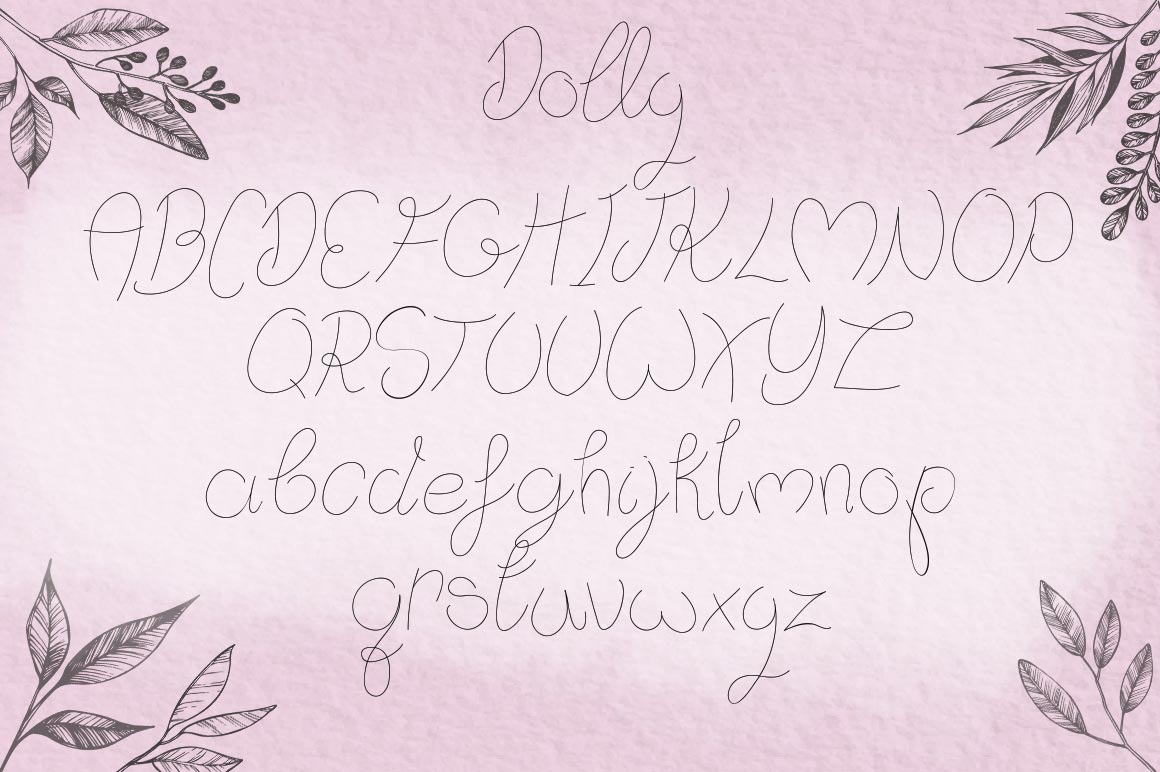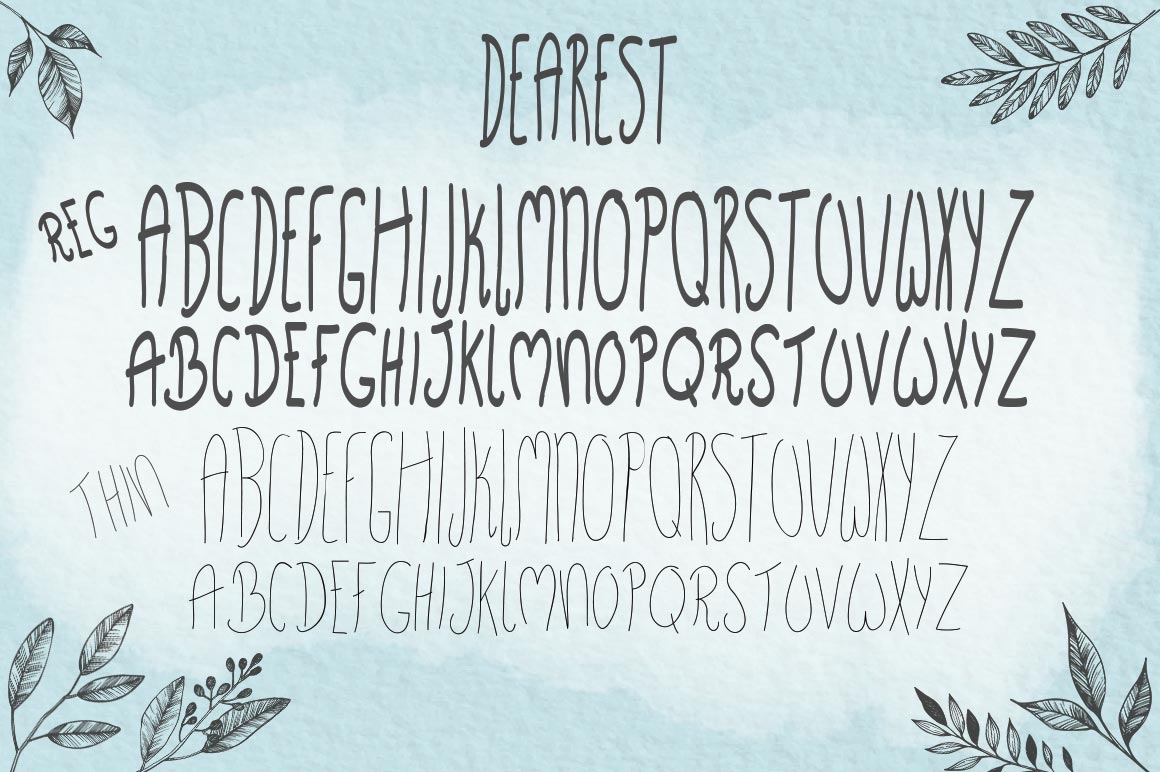
Dolly Duo Font: The Perfect Pair for Magical Designs
Are you a designer or crafter looking for a unique and playful font combination to elevate your creative projects? Look no further than the Dolly Duo Font! This delightful pair of fonts is designed to bring a touch of whimsy and fun to your logos, headers, and designs. In this article, we’ll dive into the world of Dolly Duo Font and explore its features, benefits, and uses.
Meet Dolly and Dearest: The Dynamic Duo
The Dolly Duo Font consists of two complementary fonts: Dolly and Dearest. As described by the font’s creator, “Dolly and Dearest are the best of friends! A perfect combo of swirly, script happiness and straight, fun sans sass.” This perfect pairing allows you to mix and match the two fonts to create visually appealing and engaging designs.
Characteristics of Dolly Duo Font
The Dolly Duo Font boasts a unique combination of characteristics that make it stand out from other font pairs. Here are a few key features:
- Swirly Script Happiness: Dolly, the script font, brings a touch of elegance and sophistication to your designs. Its swirly, cursive letters are perfect for adding a whimsical touch to logos, headers, and titles.
- Straight Fun Sans Sass: Dearest, the sans font, provides a fun and playful contrast to Dolly’s scripty charm. Its straight, clean lines make it ideal for adding a modern and fresh feel to your designs.
- Perfect Pairing: The Dolly Duo Font is designed to be used together, creating a beautiful and harmonious visual balance. You can use Dolly for titles and headers, while Dearest provides a clean and crisp body text.
Using Dolly Duo Font in Your Designs
The Dolly Duo Font is versatile and can be used in a variety of design projects, including:
- Logos: Create a unique and memorable logo by combining Dolly and Dearest. The swirly script of Dolly can add a touch of sophistication, while Dearest provides a modern and clean contrast.
- Headers: Use Dolly for headings and titles, and Dearest for body text. This creates a beautiful visual hierarchy and makes your content more engaging.
- Magical Designs: The Dolly Duo Font is perfect for creating magical and whimsical designs, such as invitations, greeting cards, and children’s book illustrations.
Tips and Tricks for Using Dolly Duo Font
Here are a few tips and tricks to get the most out of the Dolly Duo Font:
- Use the ¥ symbol for ll ligature: To add a special touch to your designs, use the ¥ symbol as a substitute for the ll ligature. This creates a unique and elegant look.
- Experiment with font sizes and colors: Play around with different font sizes and colors to create visual interest and hierarchy in your designs.
- Pair with other design elements: Combine the Dolly Duo Font with other design elements, such as illustrations, graphics, and textures, to create a unique and eye-catching design.
The Dolly Duo Font is a delightful pair of fonts that can add a touch of whimsy and fun to your designs. With its unique combination of swirly script and straight sans sass, this font pair is perfect for creating magical and engaging designs. Whether you’re a designer or crafter, the Dolly Duo Font is sure to become a favorite in your creative toolkit. So why not give it a try and see the magic happen?